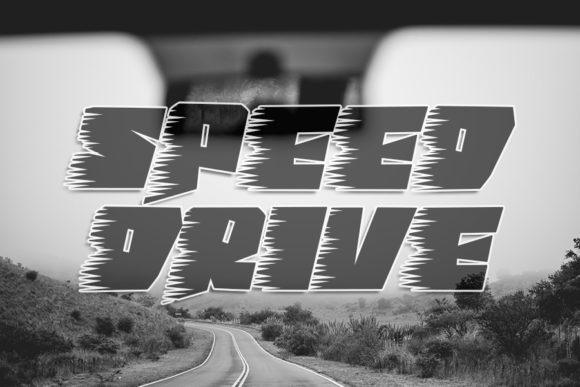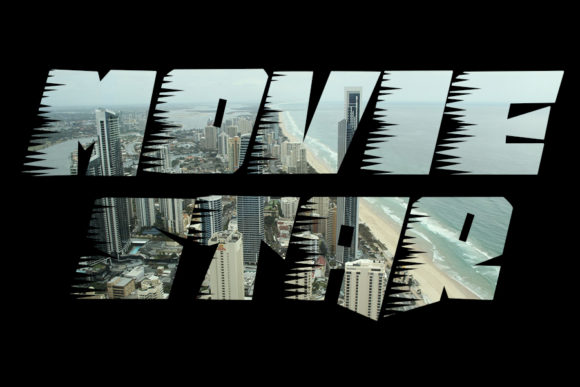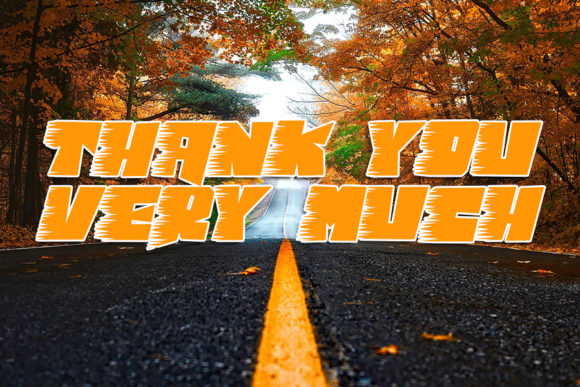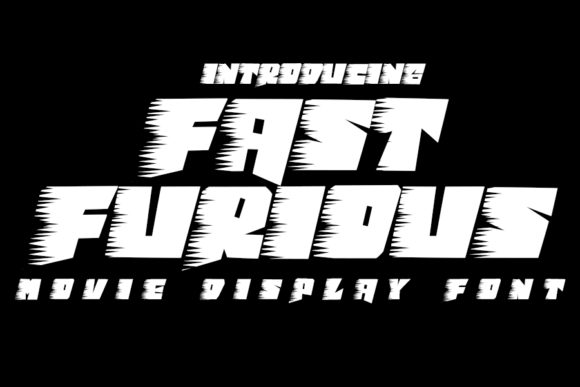
Unleash Your Creativity with Fast Furious Font: The Ultimate Display Font for Bold Designs
Are you a designer or crafter looking for a font that can add a touch of aggression and boldness to your designs? Look no further than the Fast Furious Font. This display font is perfect for making a statement, with its thick, strong lettering that’s sure to grab attention. In this article, we’ll explore the features and benefits of Fast Furious Font, and show you how to make the most of this versatile and powerful font.
What is Fast Furious Font?
Fast Furious Font is a bold, strong lettered display font that’s designed to make your designs look great. With its thick, aggressive lettering, this font is perfect for creating eye-catching headlines, titles, and captions. Whether you’re working on a graphic design project, crafting a logo, or creating social media graphics, Fast Furious Font is the perfect choice.
Key Features of Fast Furious Font
- Bold and Strong Lettering: Fast Furious Font features thick, strong lettering that’s perfect for creating bold and eye-catching designs.
- Aggressive Style: The font’s aggressive style makes it perfect for designs that require a tough and rugged look.
- Display Font: Fast Furious Font is a display font, making it perfect for use in headlines, titles, and captions.
- Versatile: This font can be used in a variety of design projects, from graphic design to crafting and DIY projects.
Benefits of Using Fast Furious Font
So why choose Fast Furious Font for your design projects? Here are just a few benefits of using this powerful font:
- Adds Impact: Fast Furious Font adds impact and emphasis to your designs, making them stand out from the crowd.
- Creates a Statement: With its bold and aggressive style, Fast Furious Font is perfect for creating a statement in your designs.
- Easy to Read: Despite its bold style, Fast Furious Font is easy to read, making it perfect for use in headlines and titles.
- Customizable: This font can be customized to fit your design needs, making it perfect for use in a variety of projects.
How to Use Fast Furious Font
Using Fast Furious Font is easy. Here are a few tips to get you started:
- Pair with Other Fonts: Pair Fast Furious Font with other fonts to create a unique and interesting design.
- Use in Headlines and Titles: Use Fast Furious Font in headlines and titles to add impact and emphasis.
- Experiment with Colors: Experiment with different colors to find the perfect look for your design.
- Use in Graphic Design: Use Fast Furious Font in graphic design projects, such as brochures, posters, and flyers.